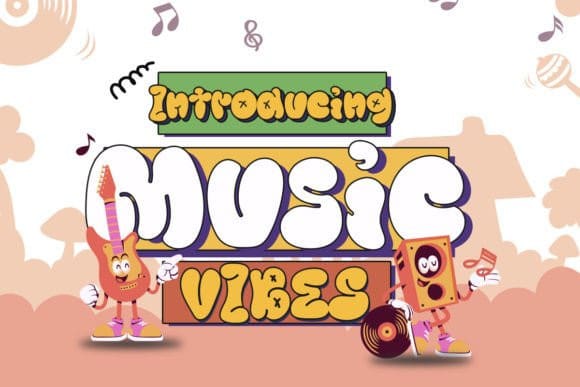
Music Vibes Font
Music Vibes Font is inspired by the 70’s funk & soul vibes. Is a distinctive and vibrant style of typography that emerged during the 1970s, primarily in the context of soul, funk, and disco. One feature that makes this font style distinctive is the use of bold letters with thin lines to form letters.